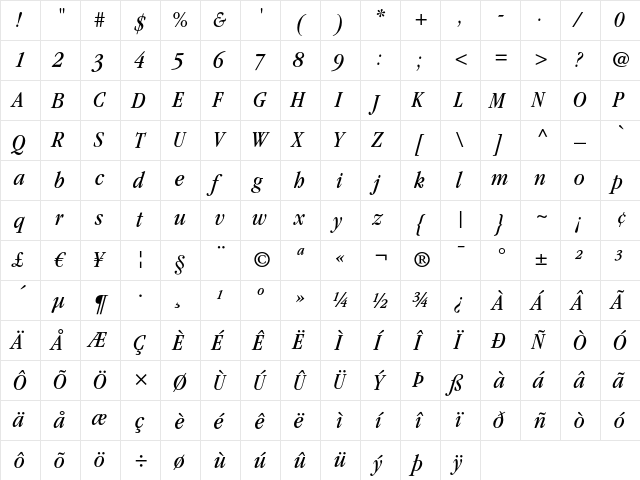
ITC Garamond LT Book Condensed Italic Font Preview
Design Context for ITC Garamond LT Typeface
ITC Garamond LT is a composed and adaptable typeface that performs quietly and consistently across a wide range of design contexts. The dynamic lean of this cut emphasises speed and emphasis in any layout. The delicate stroke weight brings airiness and refinement to layouts. Its narrow stance lets it pack a punch even in space-constrained designs.
Pro Tip: Use ITC Garamond LT for emphasis, pull quotes, and subheadings where its slanted energy can add rhythm to the layout.